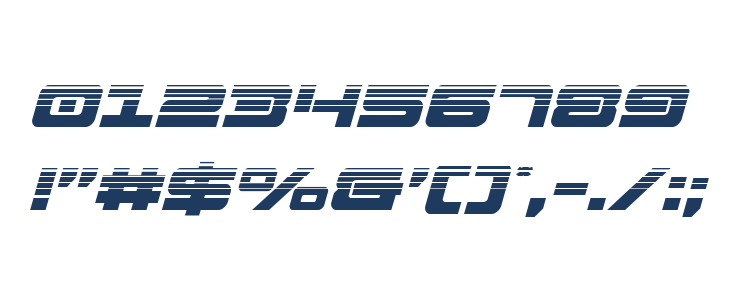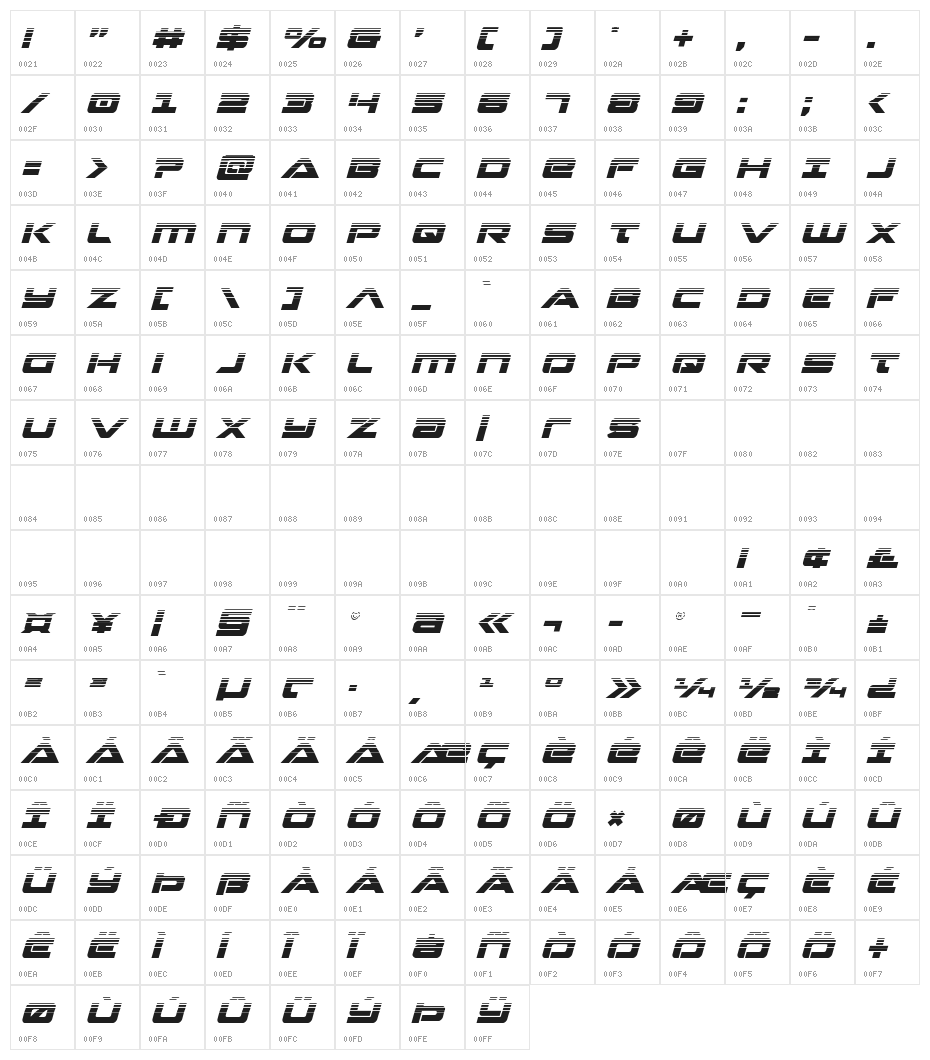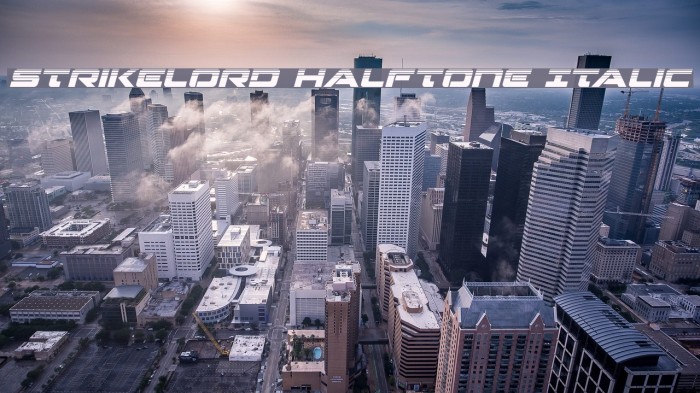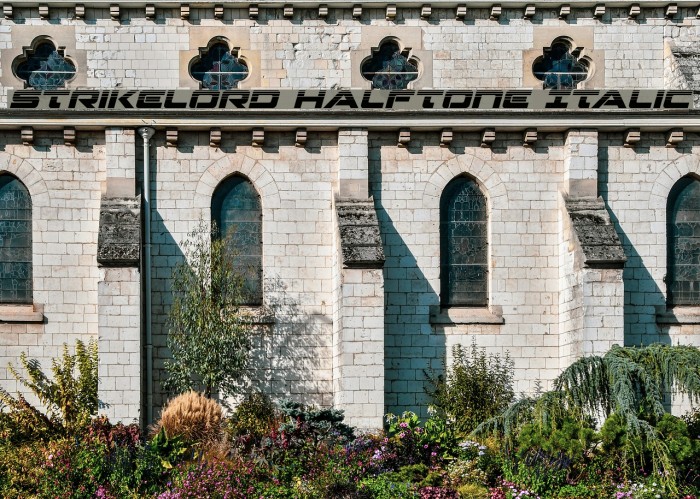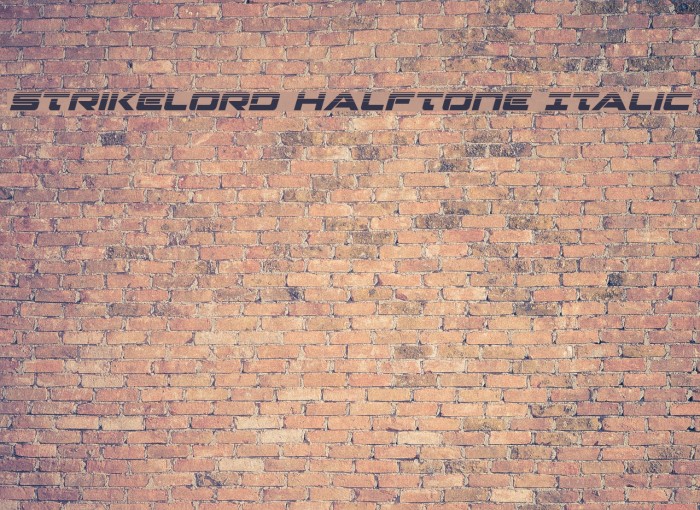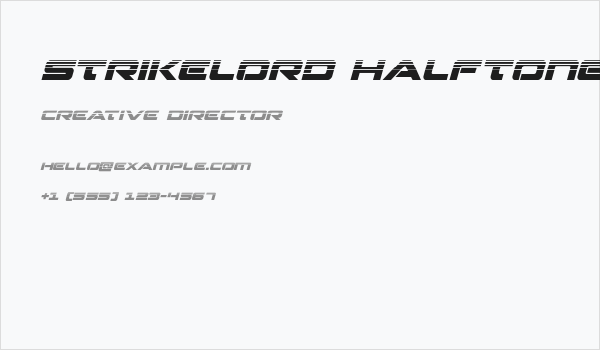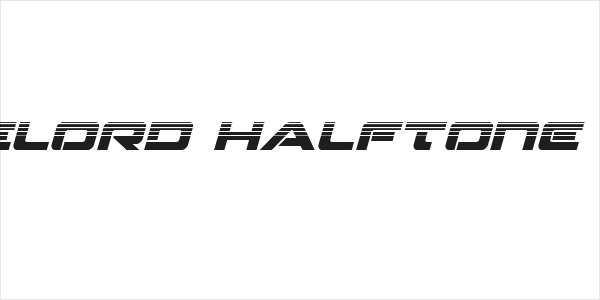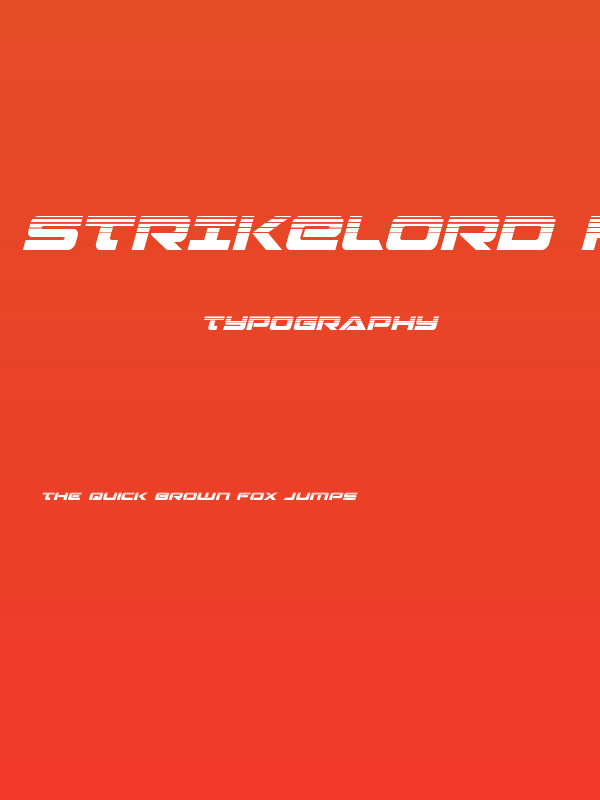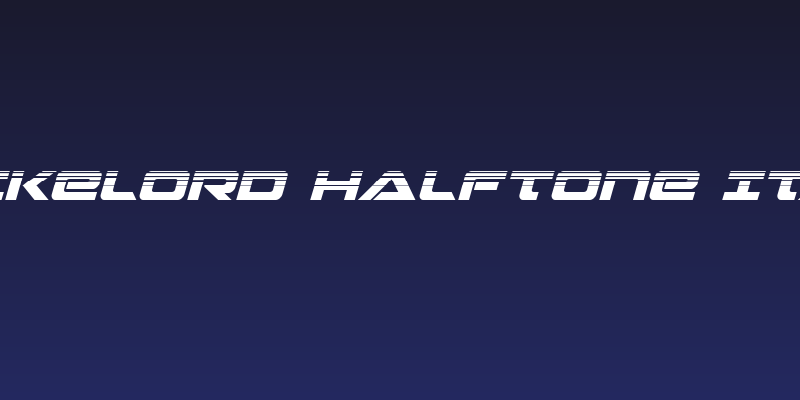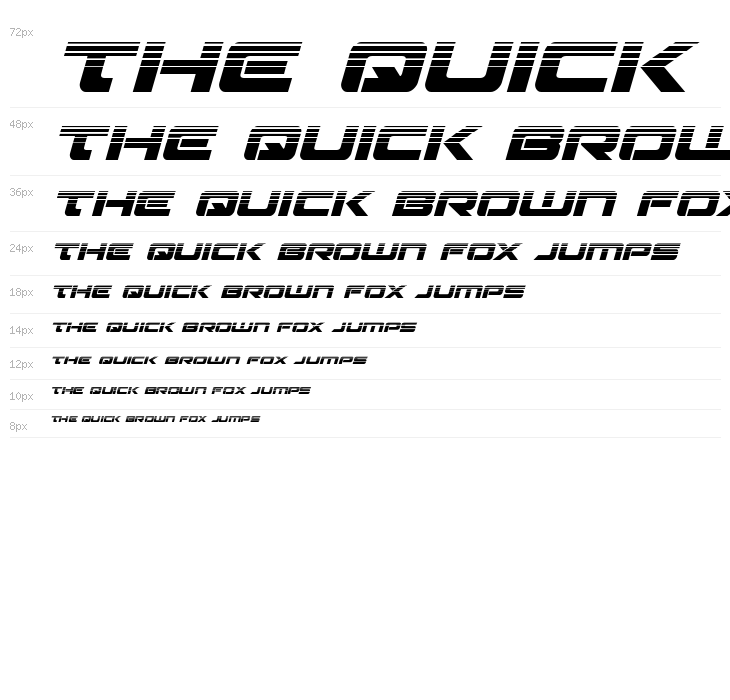
Strikelord Halftone Italic Font
Strikelord Halftone Italic Description
This font features a dynamic and futuristic design, characterized by its bold, italicized letters with a halftone effect. The strokes are thick and angular, giving it a strong, impactful presence. The halftone pattern within each character adds a unique texture, creating a sense of movement and energy. This style is reminiscent of digital or sci-fi themes, making it ideal for projects that require a modern and edgy look. The characters are evenly spaced, ensuring readability while maintaining a compact appearance.
| Proposed Projects | Ideal for sci-fi themed posters, video game titles, tech branding, and digital media. |